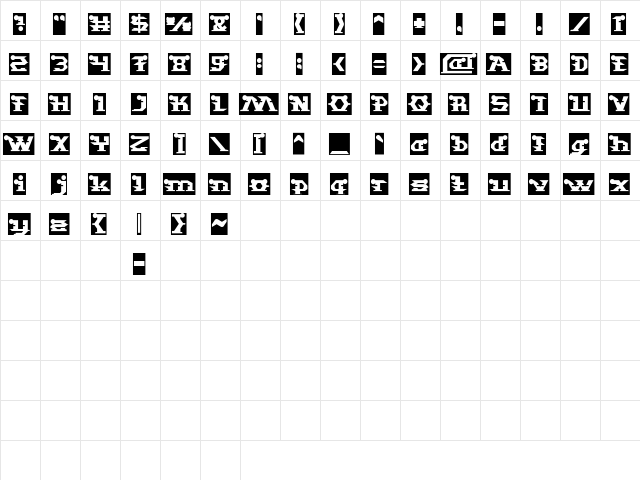
STARGAZER-Inverse Regular
Design Context for STARGAZER-Inverse Typeface
STARGAZER-Inverse is a composed and adaptable typeface that performs quietly and consistently across a wide range of design contexts.
Pro Tip: Use STARGAZER-Inverse in both headline and body roles to test its range before committing to a single application.